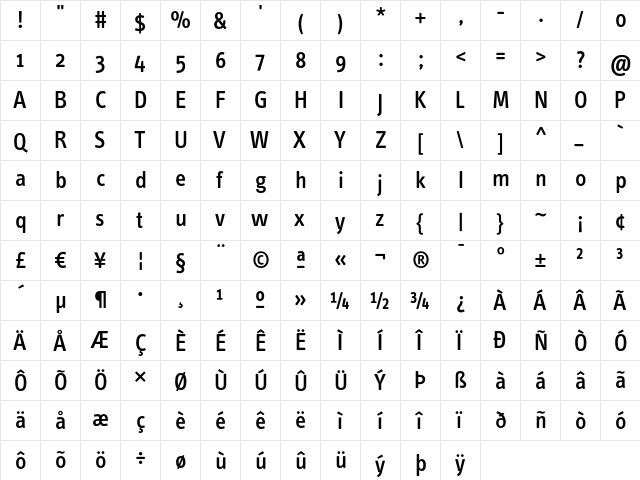
InfoTextMedium Roman
Design Context for InfoTextMedium Typeface
InfoTextMedium is a composed and adaptable typeface that performs quietly and consistently across a wide range of design contexts.